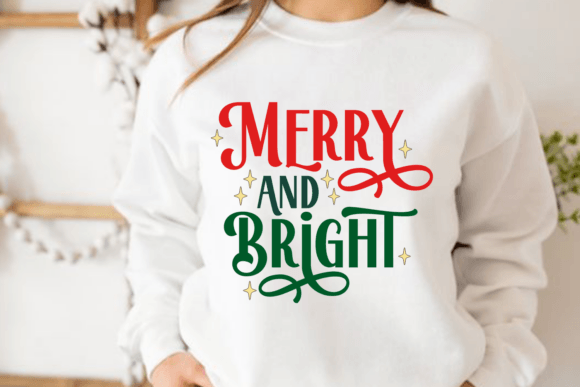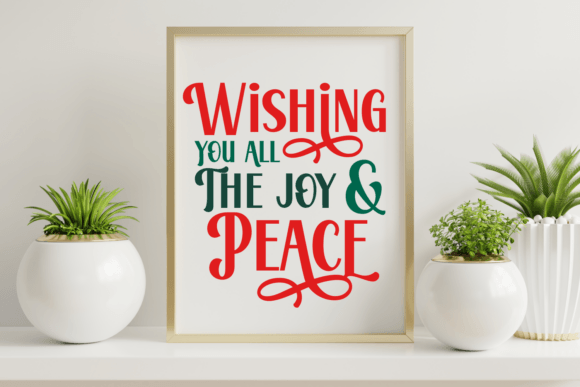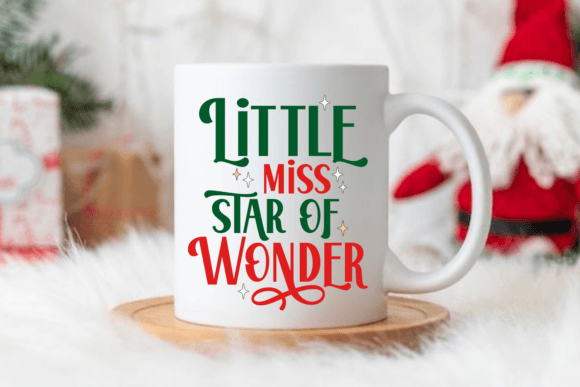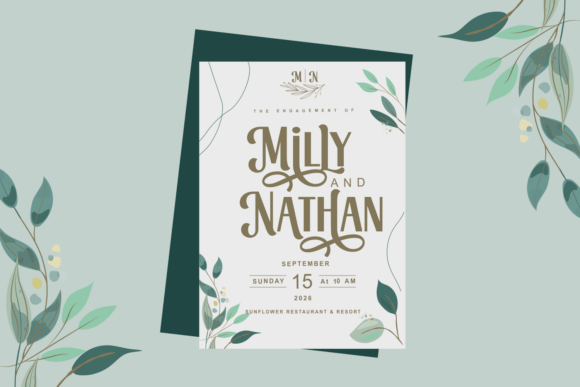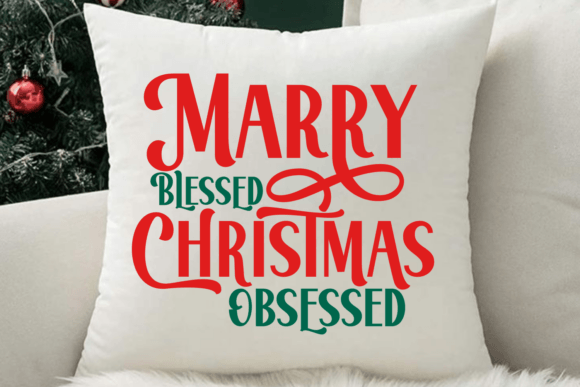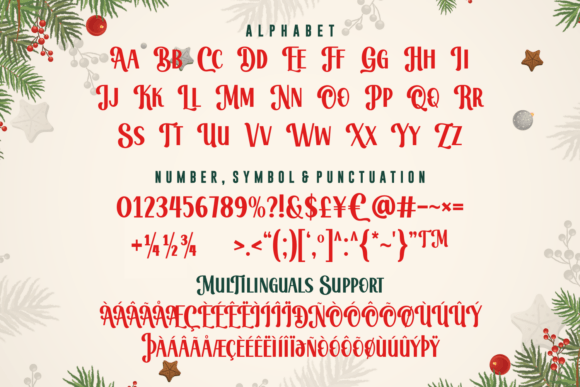
Introduction to Christmas Brightly Font
Introducing Christmas Brightly, a font that quite literally brightens up the festive season with its imaginative flair.
Carved with alternated swash design in each letter, it encapsulates the merry spirit of Christmas in every stroke, elevating the visual appeal of anything it is a part of Christmas Brightly proves to be an ideal companion for jumpstarting your creative expressions into holiday gear – be it turning heads with an eye-catching poster, leaving hearts warm with a beautifully designed print-on-demand t-shirt, or pouring comfort into paths less trodden with an enticing mug design.
Key Features of Christmas Brightly Font